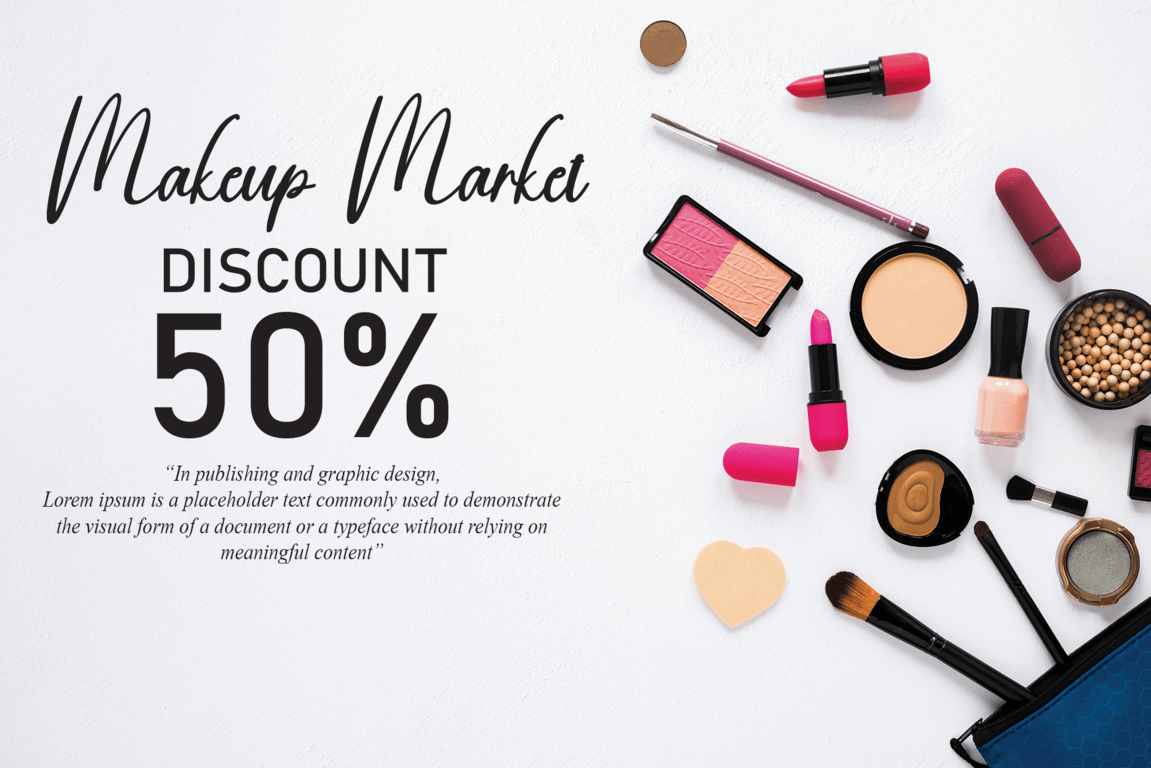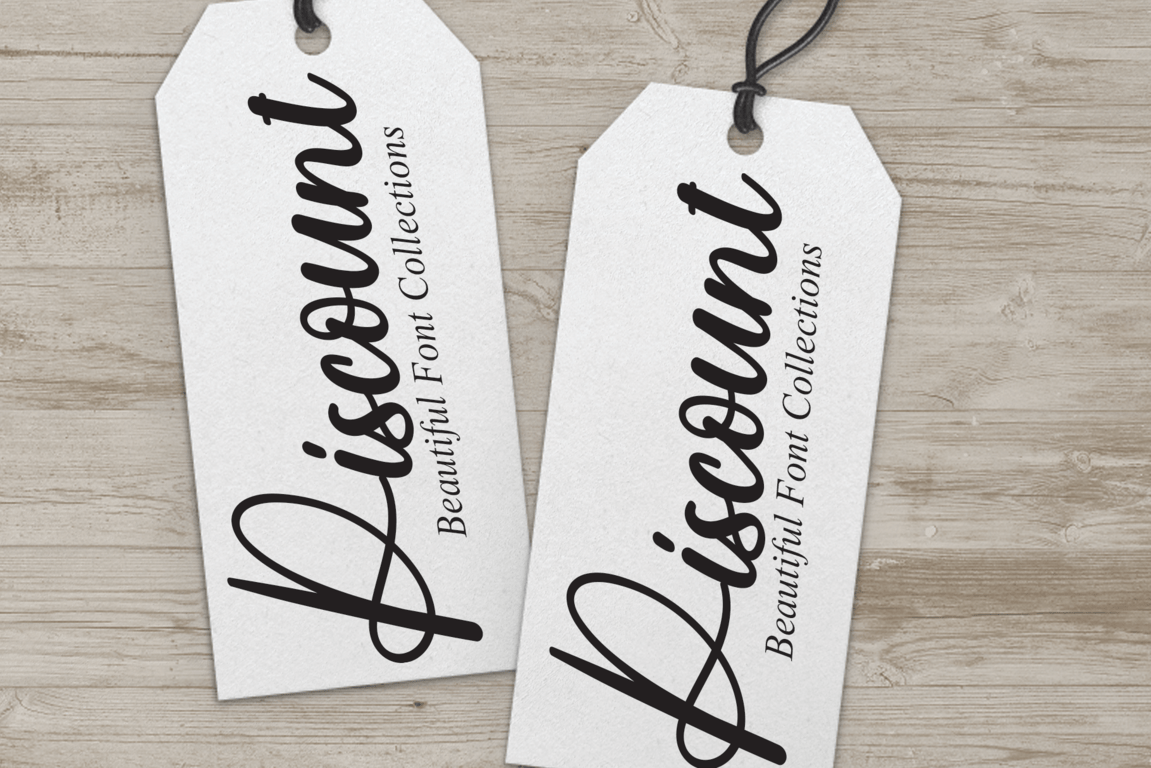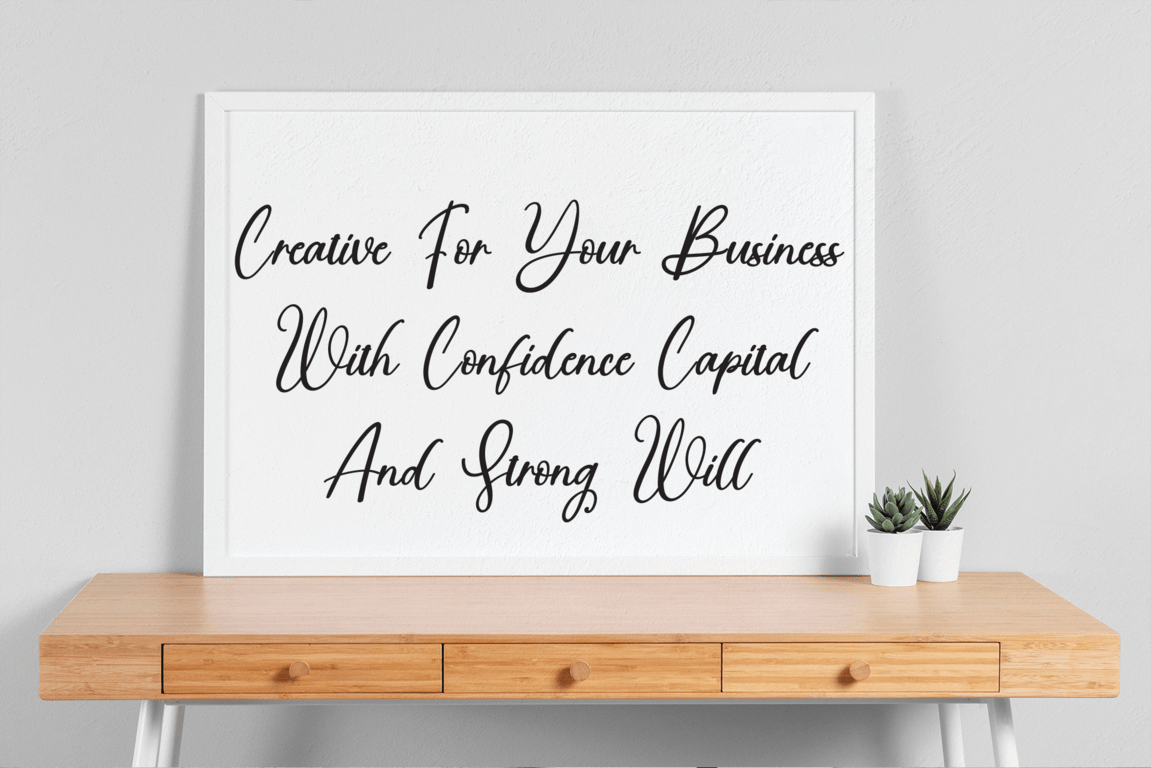
William Smitson Font
William Smitson Calligraphy Font is a delicate and fashionable script font. It is perfect for any branding project such as logos, t-shirt printing, creative products, and more. It will look extraordinary in a variety of contexts.